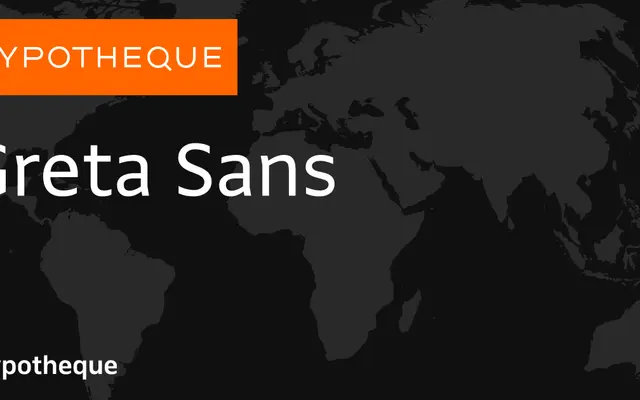
Greta Sans specimen from Typotheque
A large-scale humanist sans family from Typotheque spanning four widths, eleven weights and matching italics, with a variable font companion.
Greta Sans is a comprehensive humanist sans-serif system built for demanding editorial and publishing environments. Four width variants — Compressed, Condensed, standard and Extended — each cover up to eleven weights from Hairline to Black, all with italics, giving designers extensive range within a single coherent family. A variable font version consolidates the system for modern workflows where fine-grained weight and width control is needed.
Greta Sans is a humanist sans-serif with a broad weight range and multiple width variants, designed for demanding editorial and text use across various languages and scripts.